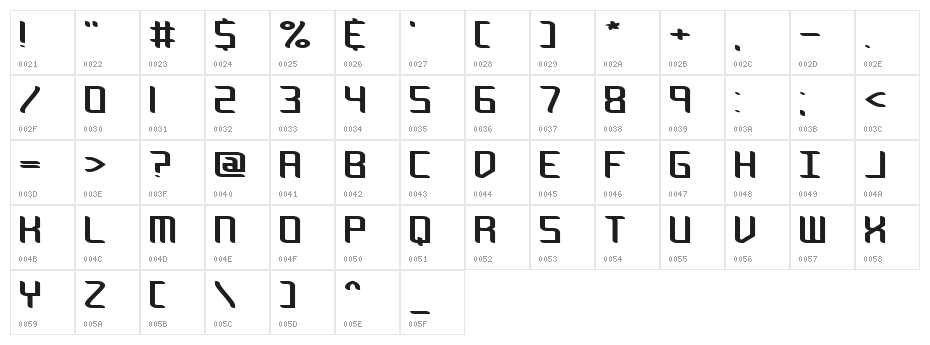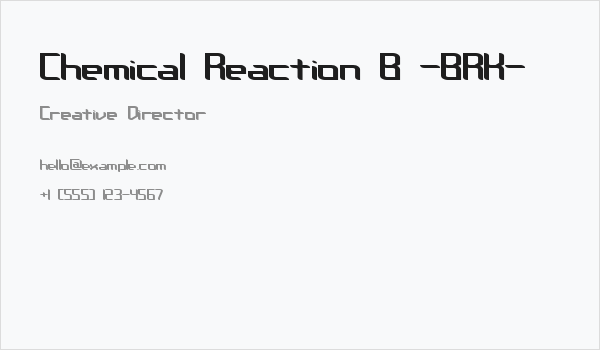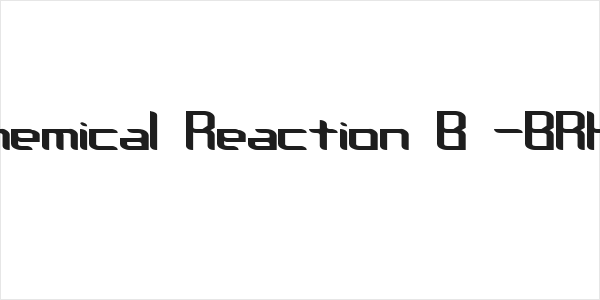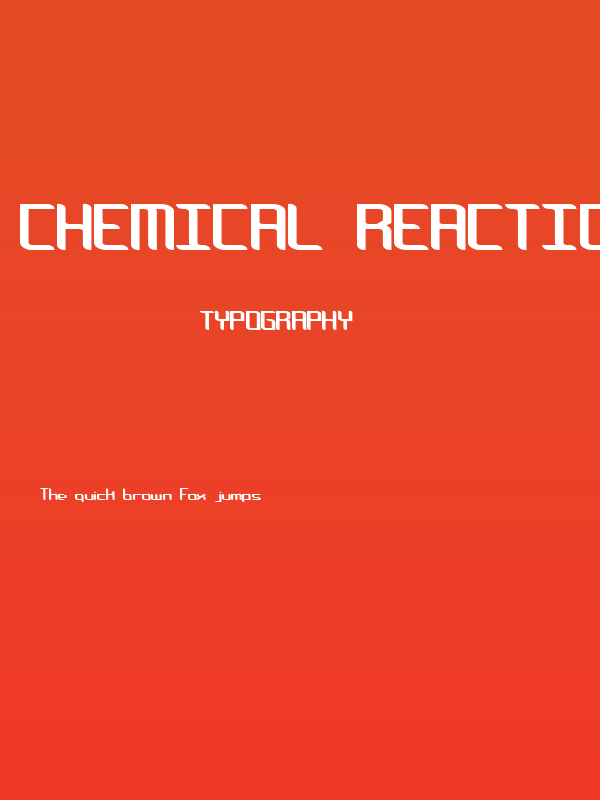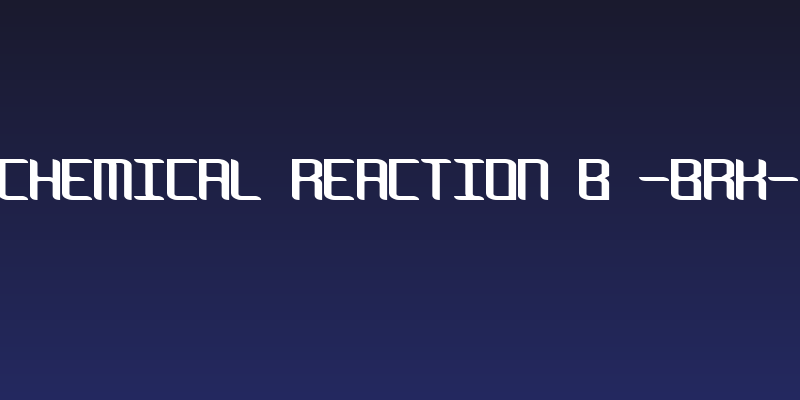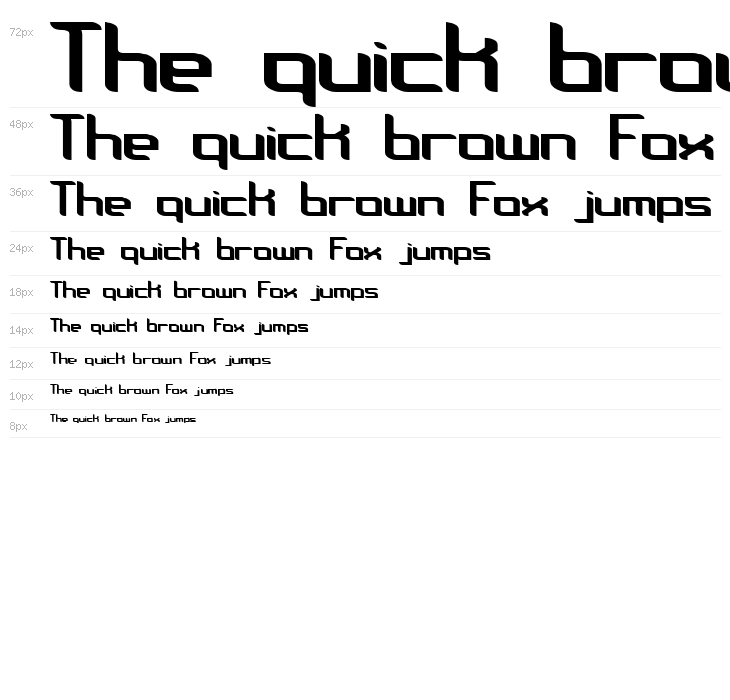
Chemical Reaction B -BRK- Font
Chemical Reaction B -BRK- Description
This font features a futuristic and geometric design, characterized by its angular and block-like letterforms. The uppercase letters are bold and structured, with a consistent height and width that give them a uniform appearance. The lowercase letters maintain the geometric style, with some characters like 'g' and 'y' having distinctive descenders that add a unique flair. The numerals are equally bold and geometric, ensuring readability and consistency across different uses. Special characters are designed to match the overall aesthetic, providing a cohesive look. This font's modern and technical style makes it suitable for projects that require a contemporary and edgy feel.
| Proposed Projects | Ideal for tech branding, sci-fi themed designs, video game interfaces, and modern posters. |